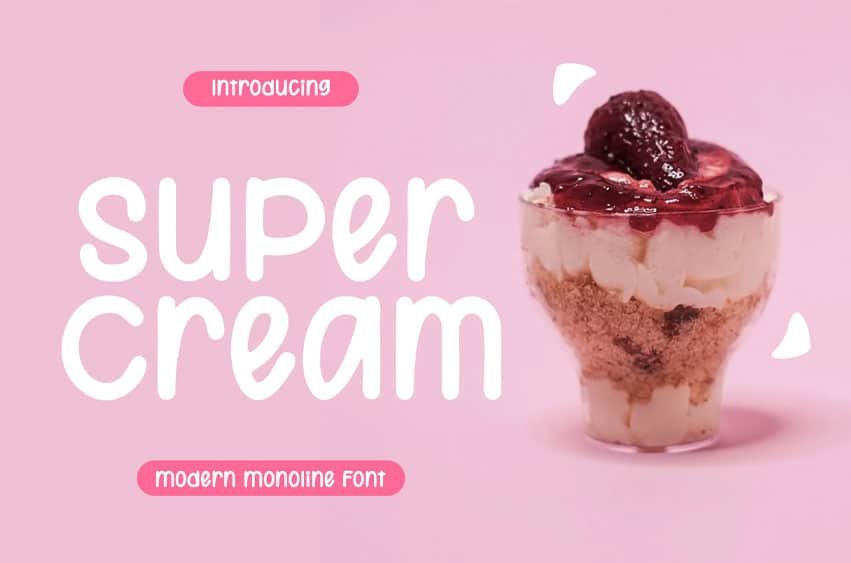
Super Cream Font Roghan Adventure Fonts modern font is a bold and authentic display font.
The font is suitable for any branding project like logo, t-shirt printing, esport, and many more. Outstanding in a wide range of contexts.